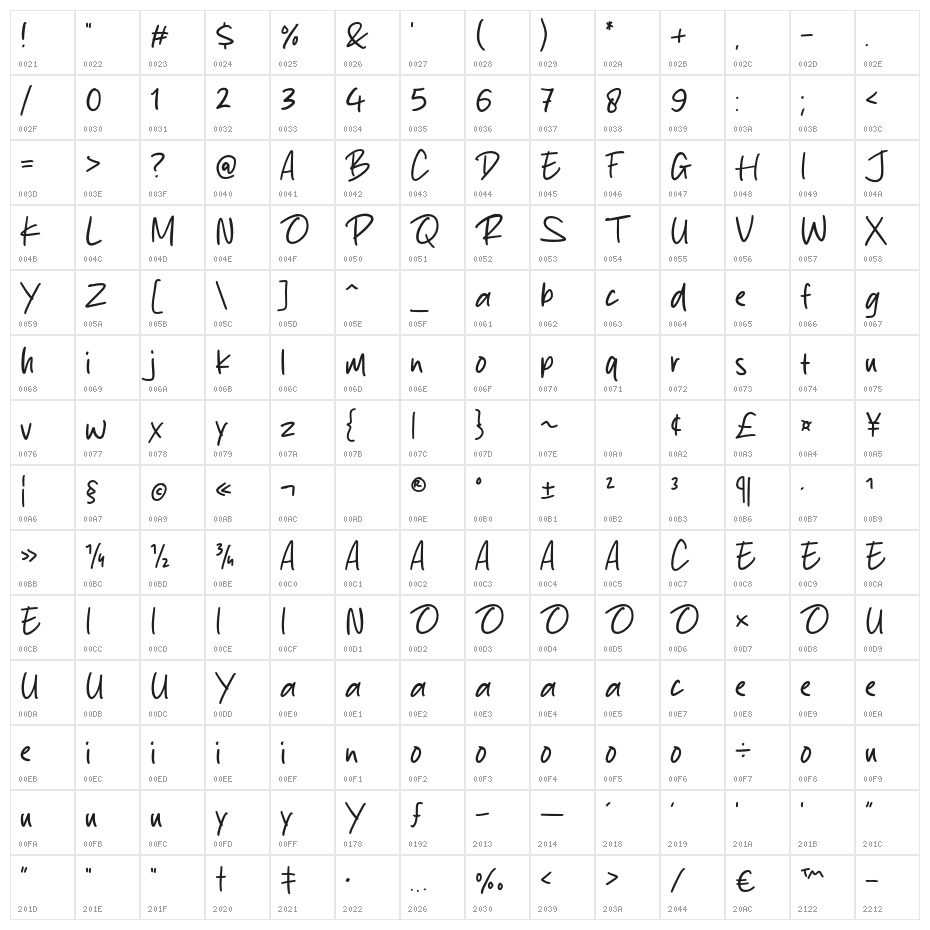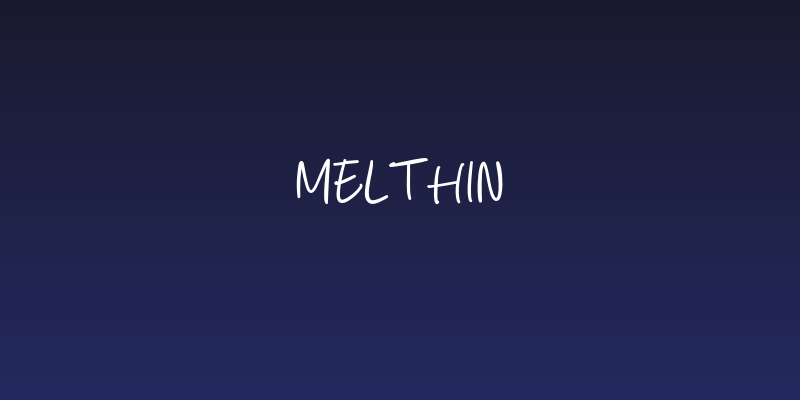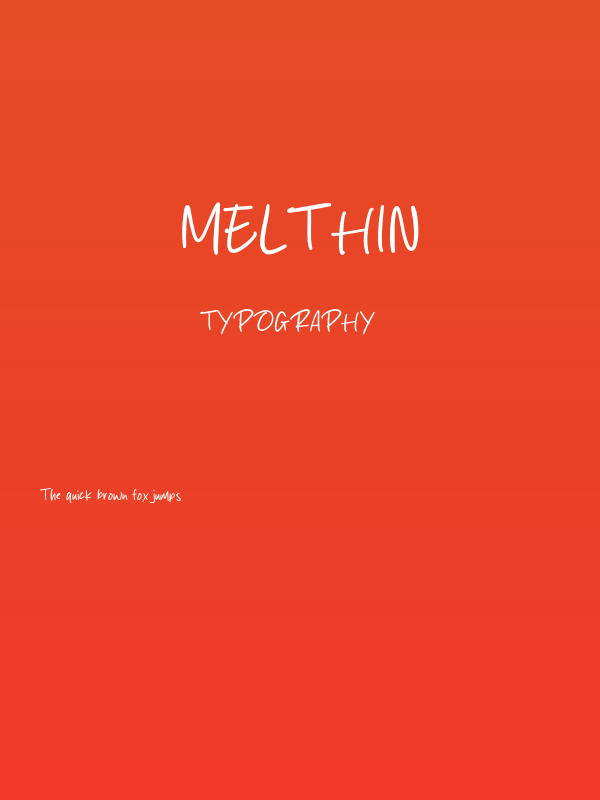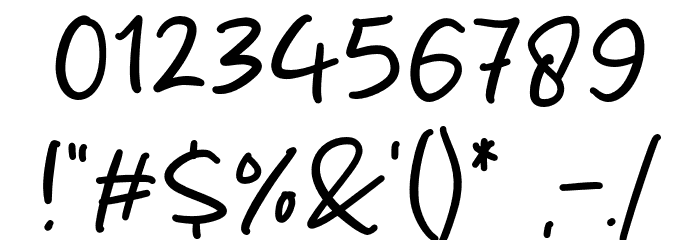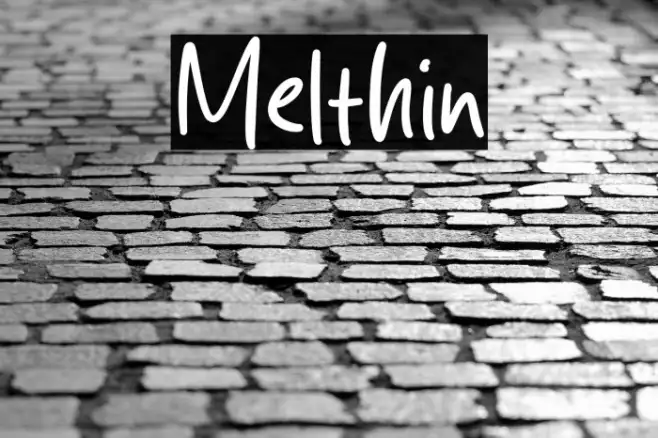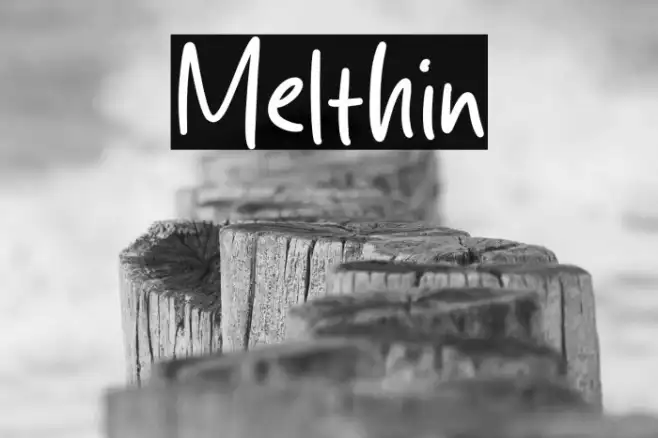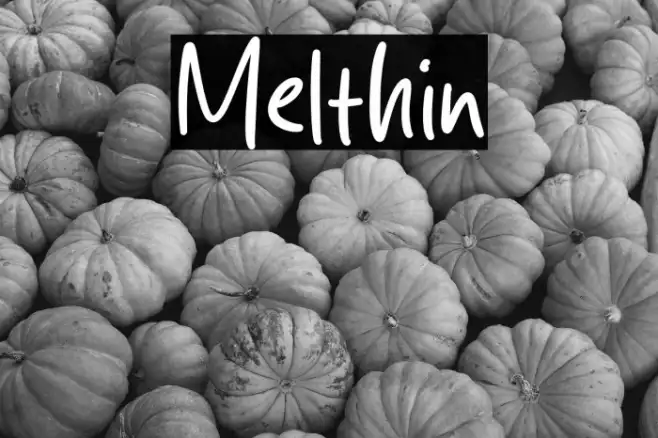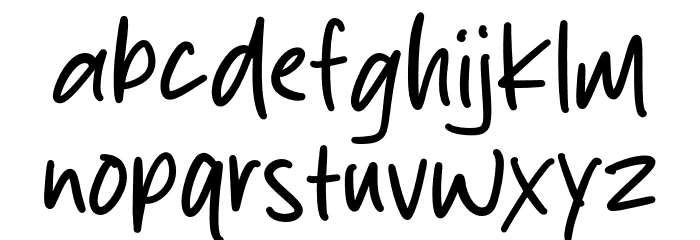
Melthin Font
Melthin Description
This font exhibits a playful and casual handwritten style, characterized by its fluid and dynamic strokes. The letters are slightly slanted, giving a sense of movement and spontaneity. The uppercase and lowercase letters maintain a consistent style, with rounded edges and a natural flow. The numerals and special characters complement the overall design, maintaining the same informal and approachable aesthetic. This font is ideal for projects that require a personal touch or a friendly, informal tone.
MELTHIN UPPERCASE
MELTHIN LOWERCASE
MELTHIN OTHER CHARS
| Use Case | Logos, Headlines, Informal text |
| Proposed Projects | Greeting cards, invitations, personal branding, social media graphics, and casual event posters. |